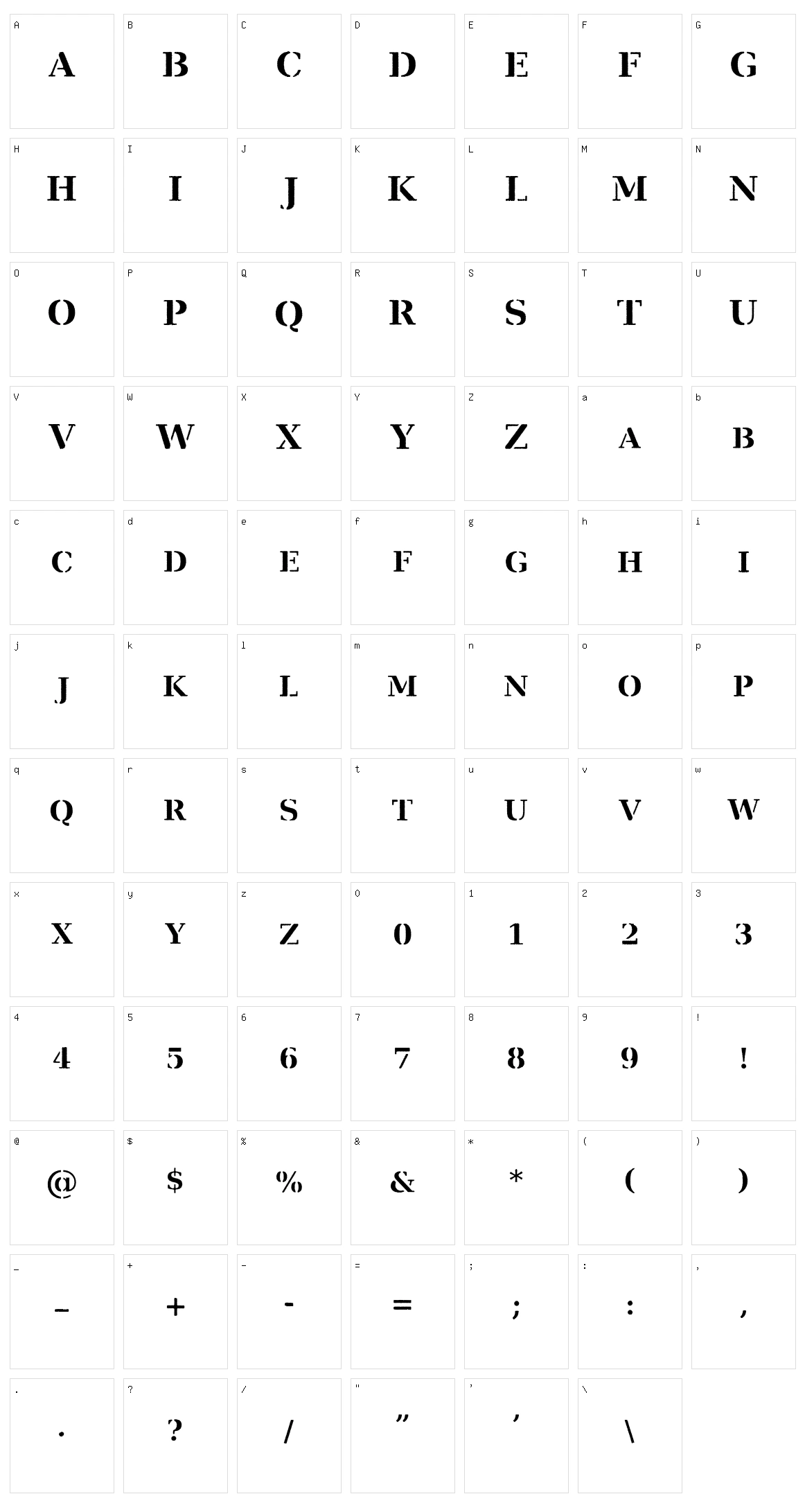
The free font Ver Army is carefully designed by Damien Gosset, showcasing a thoughtful balance of creativity and usability and falls under the Stencil font style. When you download the ZIP file, it contains only 545.67 KB of font files, making it lightweight and quick to download. Please review the license details below to understand permitted usage and distribution rights. If license information is not available, we recommend using this font for personal projects only or contacting the author directly for commercial usage permissions.